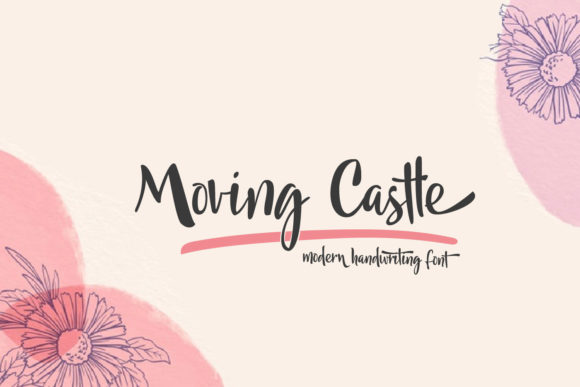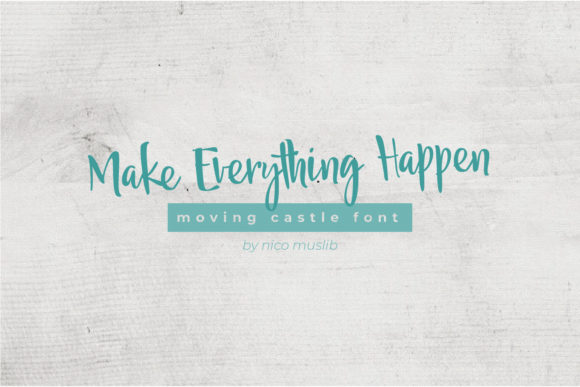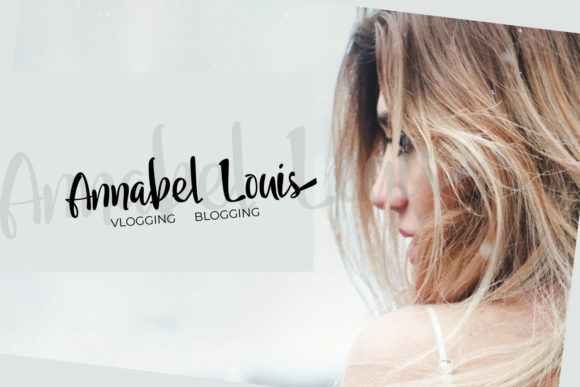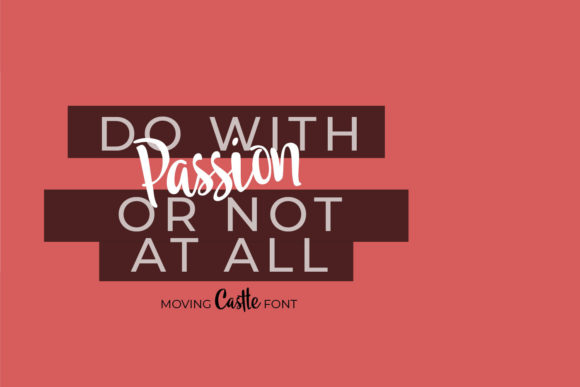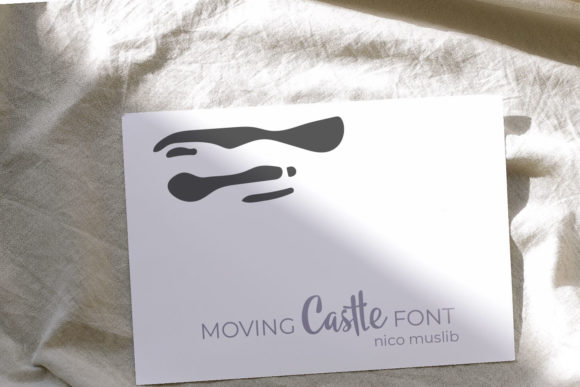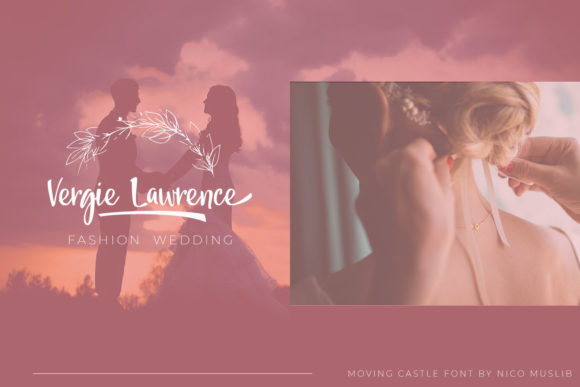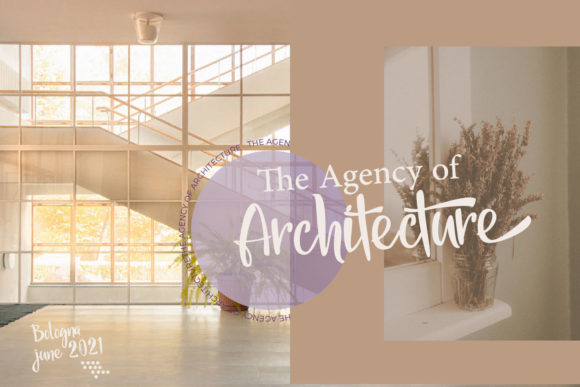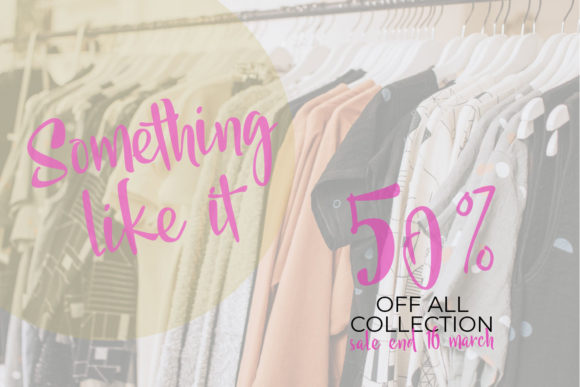
Moving Castle Font
About Moving Castle Font
Moving Castle is a beautiful and delicate handwritten font that exudes elegance and charm. With its intricate letterforms and graceful curves, this font is the perfect choice for creating eye-catching designs across a variety of projects.
The flowing nature of Moving Castle adds a touch of sophistication to logos and branding materials. Its delicate strokes and subtle variations in line weight give it a unique and handcrafted feel, making it ideal for creating romantic cards, wedding invitations, and other love-themed designs.
The versatility of Moving Castle extends beyond romantic projects. It can also be used for quotes, labels, packaging, and even the spelling of names. The font’s dainty and delicate style adds a touch of elegance to any design, making it suitable for a wide range of creative applications.
Whether you’re working on digital designs or print materials, Moving Castle will capture attention and leave a lasting impression. Its beauty lies in its simplicity, making it a versatile choice that can be easily paired with other fonts or used on its own as a focal point.
With Moving Castle, you have the freedom to unleash your creativity and create stunning visuals that capture the essence of elegance and charm. Its delicate nature adds a touch of grace to every project, making it an excellent choice for anyone looking to elevate their designs.
In summary, Moving Castle is a beautiful and delicate handwritten font that is perfect for creating eye-catching logos, branding, quotes, wedding invitations, romantic cards, labels, packaging, and more. Its elegance and charm make it a versatile choice for a variety of design projects. Let Moving Castle add a touch of sophistication to your creations and make them truly memorable.